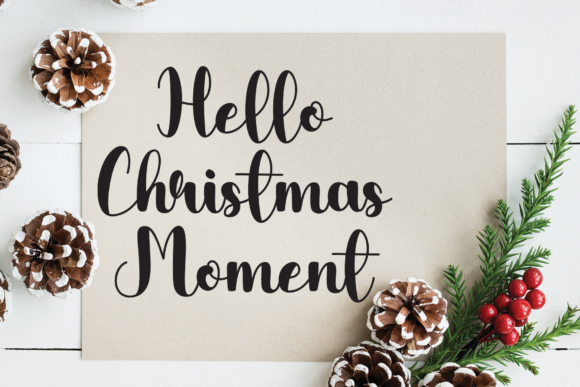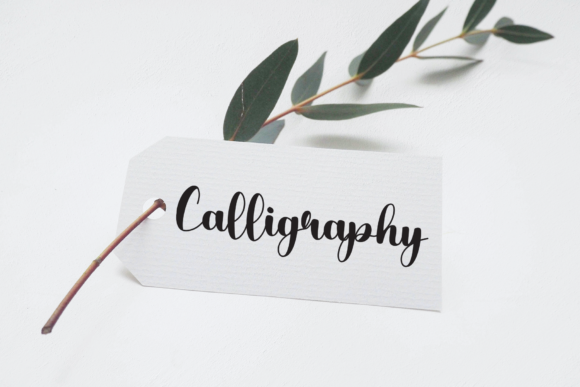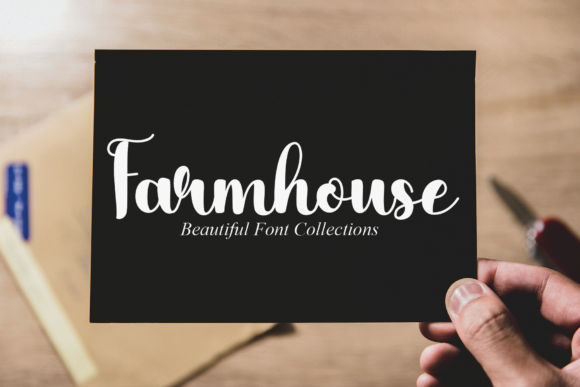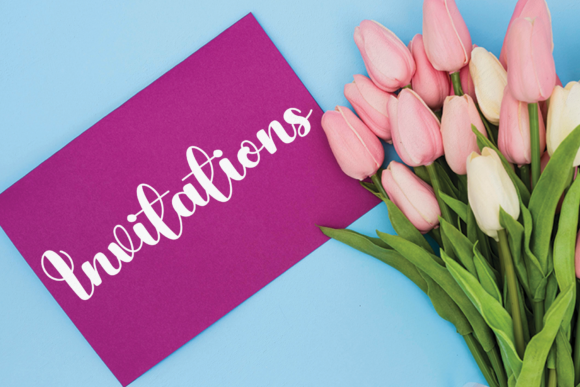
Babylona Font: Elevate Your Designs with Elegance and Sophistication
In the world of typography, a beautiful handwritten font can make all the difference in creating stunning designs that capture attention and convey elegance. Introducing Babylona Font, a gorgeous and flowing script font that is perfect for a wide range of creative projects. Whether you’re a designer, crafter, or DIY enthusiast, Babylona Font is sure to become your go-to choice for impressive typography.
What is Babylona Font?
Babylona Font is a beautiful and flowing handwritten font that exudes sophistication and elegance. Its smooth, cursive lines and intricate details make it perfect for creating stunning designs that require a touch of luxury. With its unique and distinctive style, Babylona Font is sure to add a professional touch to any project.
Uses of Babylona Font
The versatility of Babylona Font makes it suitable for a wide range of creative projects, including:
- Wall hangings and signage
- Social media post logos and graphics
- Product packaging and design
- Labels and branding
- Photography and watermarks
- Invitations and event materials
- Stationery and paper crafts
Why Choose Babylona Font?
So, why choose Babylona Font for your next project? Here are just a few reasons:
- Elegance and sophistication: Babylona Font adds a touch of luxury to any design, making it perfect for high-end projects.
- Versatility: With its unique style and flowing lines, Babylona Font can be used for a wide range of creative projects.
- Easy to read: Despite its intricate details, Babylona Font is easy to read, making it perfect for body text and headlines.
- High-quality design: Babylona Font is designed with high-quality typography in mind, ensuring that your designs look professional and polished.
Tips for Using Babylona Font
To get the most out of Babylona Font, here are a few tips to keep in mind:
- Use it sparingly: Babylona Font is a statement font, so use it sparingly to add emphasis and elegance to your designs.
- Pair it with contrasting fonts: Pair Babylona Font with contrasting fonts to create visual interest and add depth to your designs.
- Experiment with colors: Babylona Font looks stunning in a range of colors, so experiment with different hues and shades to find the perfect combination for your project.
In conclusion, Babylona Font is a beautiful and flowing handwritten font that is perfect for designers, crafters, and DIY enthusiasts. With its elegant and sophisticated style, Babylona Font is sure to elevate your designs and add a professional touch to any project. Whether you’re creating wall hangings, wedding invitations, or social media graphics, Babylona Font is the perfect choice for impressive typography.